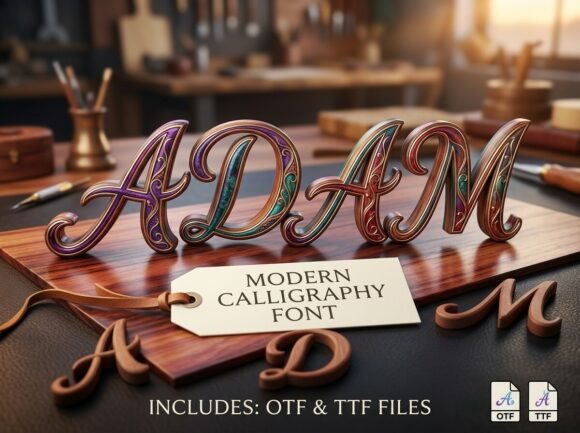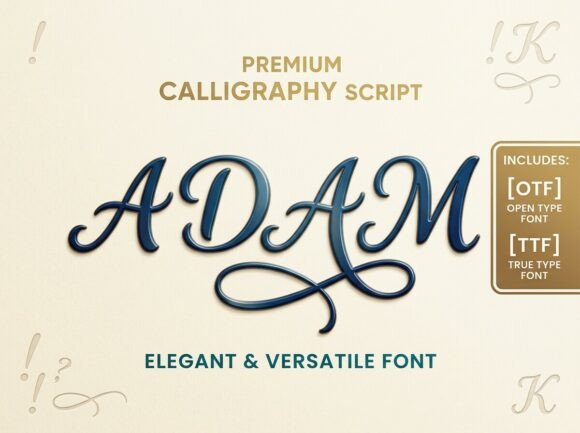
The Ultimate Display Font: Unleashing the Power of Adam Font
I’ll never forget the moment I stumbled upon a font that completely transformed my design project. I was working on a branding campaign for a luxury client, and I was struggling to find the perfect font that would convey their high-end message. That’s when I discovered Adam Font – a stunning decorative display font that instantly caught my attention. In this article, I’ll share my experience with Adam Font, its features, and how to make the most of it in your designs.
An Honest Review of Adam Font
- ✨ Unique artistic elements that add a touch of sophistication to any design
- ✅ Strong visual personality that commands attention
- 💯 Versatile enough for bold headlines, artistic logos, and creative packaging
- 🎨 Maintains a professional and polished finish
⚠️ One thing to note is that Adam Font is an ALL-CAPS (Uppercase Only) display typeface, which means it doesn’t include lowercase letters. This might be a limitation for some designers, but it’s actually a deliberate design choice to focus on high-impact headlines, logos, and decorative initials.
🤔 Another thing to consider is that the font might not be suitable for body text or long paragraphs, as its unique features might get lost in smaller sizes.
The Backstory of Adam Font
Adam Font was designed by a team of creative typographers who wanted to create a font that would stand out in a crowded design landscape. Inspired by classic art movements and modern design trends, they crafted a font that is both elegant and attention-grabbing. The result is a font that is perfect for designers who want to add a touch of sophistication and creativity to their work.
| Is Adam Font suitable for body text? | No, Adam Font is designed for display purposes only and is best used for headlines, titles, and decorative text. |
| Does Adam Font include lowercase letters? | No, Adam Font is an ALL-CAPS (Uppercase Only) display typeface and does not include lowercase letters. |